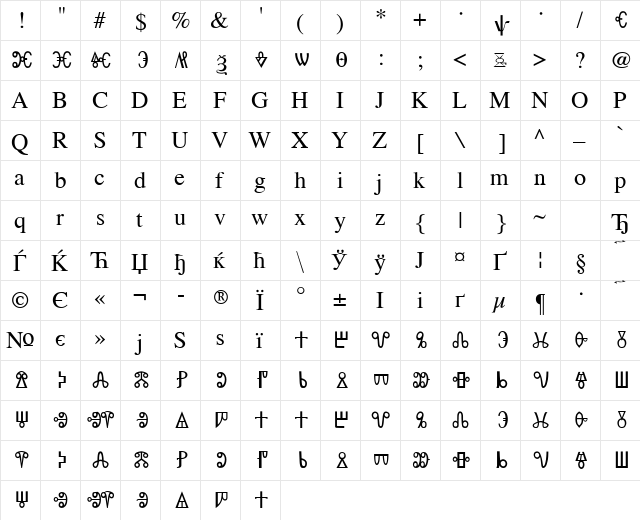
Old Church Slavonic Gla Regular
Design Context for Old Church Slavonic Gla Typeface
Old Church Slavonic Gla offers clean, dependable letterforms without strong stylistic allegiance, making it a practical choice for designers who need flexibility.